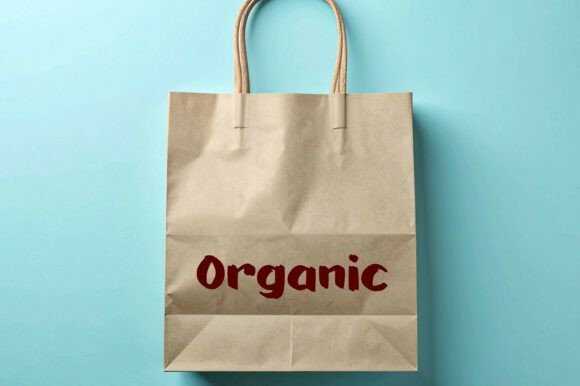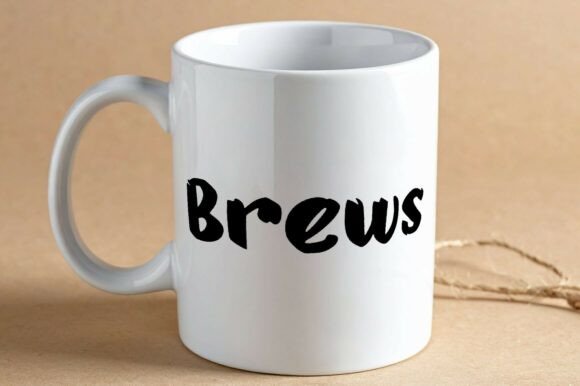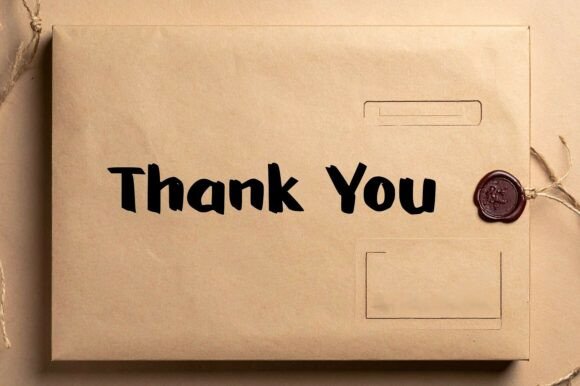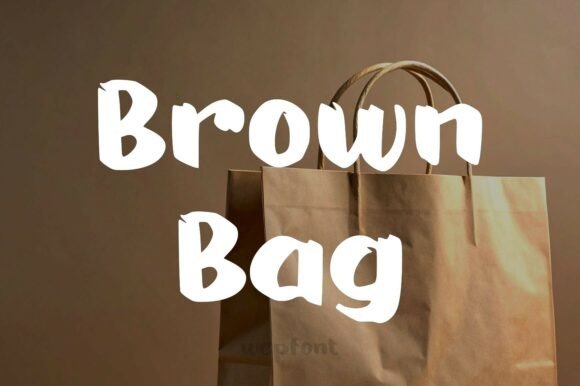
Discover the Charm of Brown Bag: A Unique Display Font
I’ll never forget the design project that led me to Brown Bag, a charismatic display font that has since become a staple in my creative toolkit. I was working on a branding project for a local artisanal bakery, and I was struggling to find the perfect font that captured the warmth and earthiness of their freshly baked goods. That’s when I stumbled upon Brown Bag, and it was love at first sight! ✨
A Personal Review of Brown Bag
As a designer, I’m always on the lookout for fonts that can help my clients stand out from the crowd. Brown Bag has been a game-changer in this regard. Here’s what I love about it:
- ✅ Unique Character: Brown Bag’s playful yet slightly unconventional characters exude genuine creativity and set a comforting and earthy tone.
- ✅ Versatility: This font is perfect for branding earth-conscious products, local culinary treats, or enhancing logos with a creative flair.
Of course, no font is perfect, and Brown Bag has a few small quirks:
- ⚠️ Limited Formality: Brown Bag is a display font, so it’s not suitable for body text or formal documents.
- 🤔 Glyph Limitations: While Brown Bag has a wide range of glyphs, some users may find that it’s missing a few specific characters.
- Experiment with OpenType features like Stylistic Alternates to add some extra flair to your text.
The Story Behind Brown Bag
Brown Bag was designed with the goal of capturing the raw beauty of the natural world and combining it with distinct sophistication. The designer wanted to create a font that would evoke feelings of earthiness and comfort, while still being elegant and refined. The result is a unique and charming font that’s perfect for a wide range of creative projects.
| Font Name | Brown Bag Font |
| Author | wep – Wahyu Eka Prasetya |
| What is Brown Bag? | Brown Bag is a charismatic display font that combines the raw beauty of the natural world with distinct sophistication. |
| What is Brown Bag suitable for? | Brown Bag is perfect for branding earth-conscious products, local culinary treats, or enhancing logos with a creative flair. |